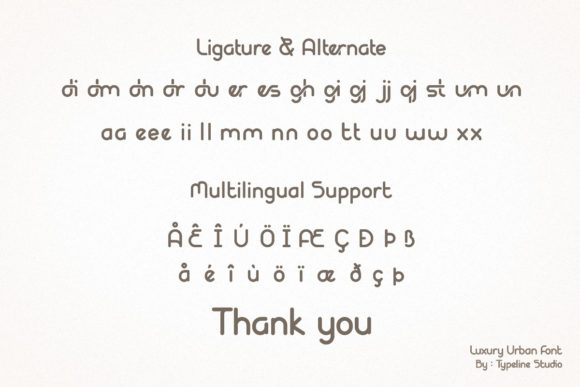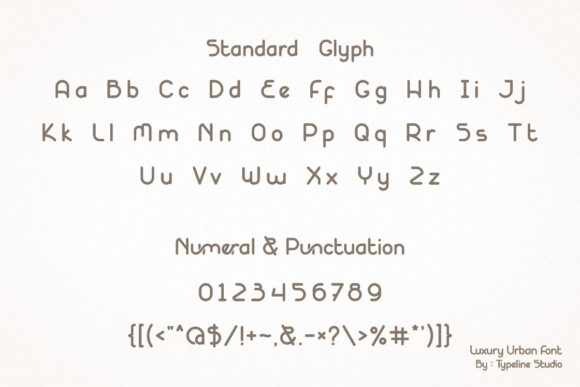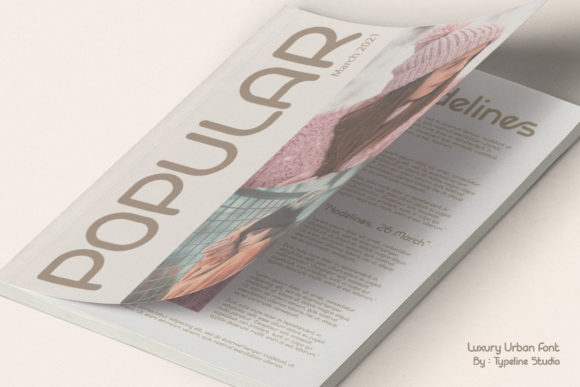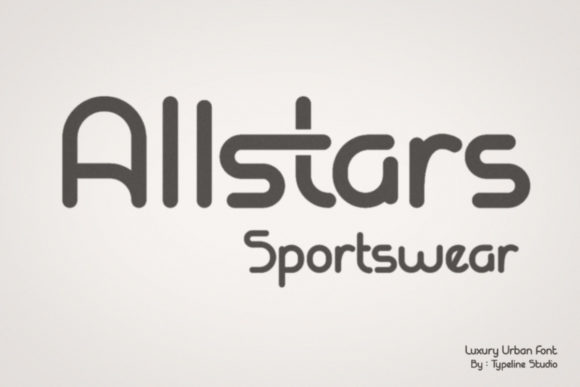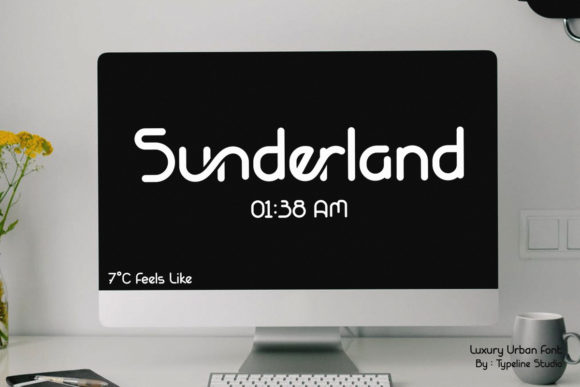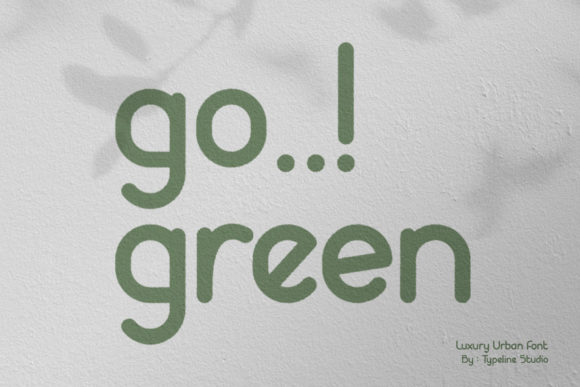
Introduction to Nodelines Font
Nodelines is a luxurious yet minimalist display font.
No matter the topic, this font will be an incredibly asset to your fontsโ€™ library, as it has the potential to elevate any creation .
Key Features of Nodelines Font